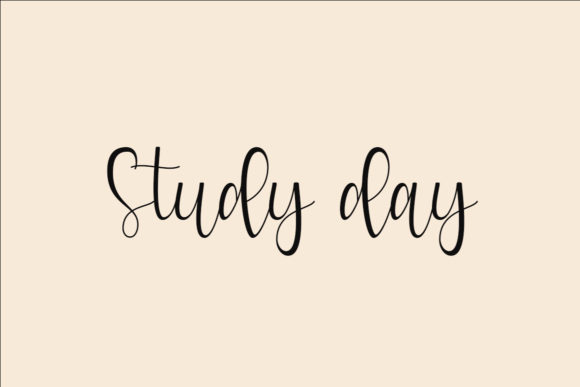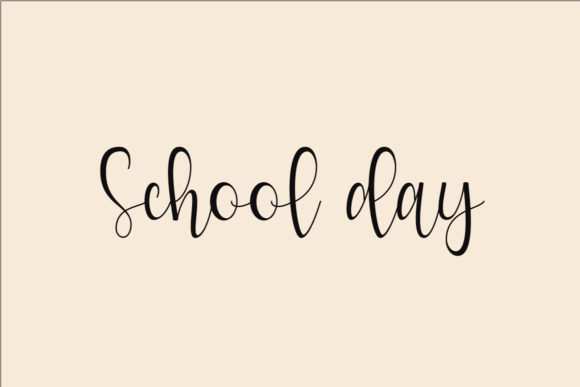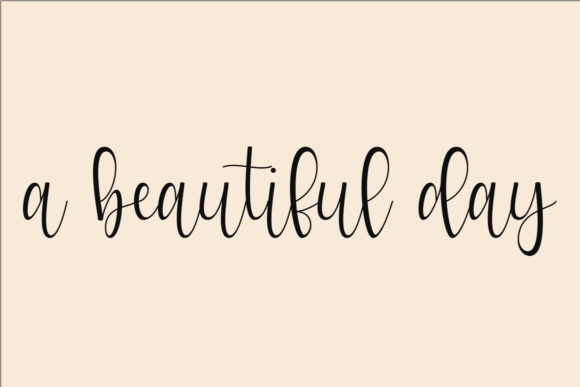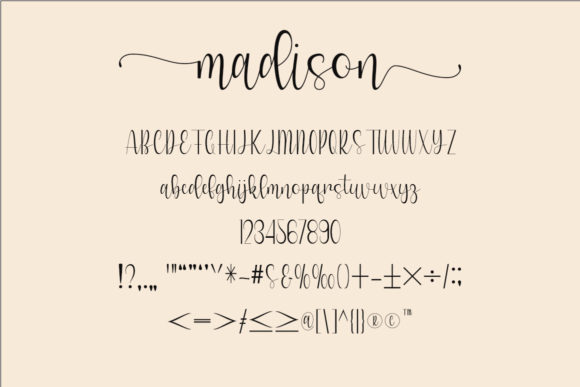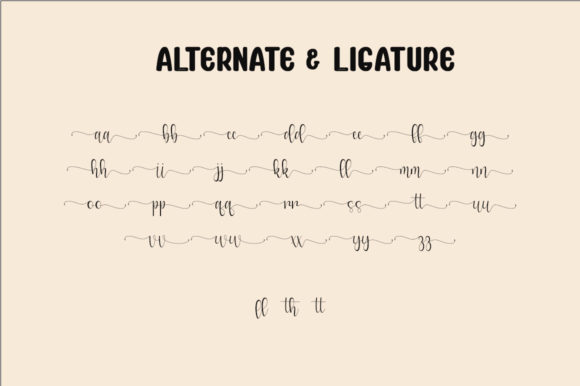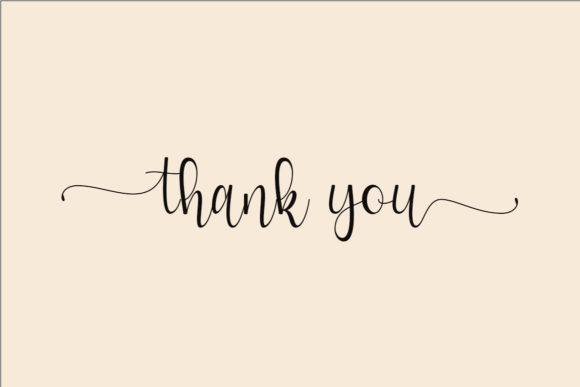
Madison Font
“Madison” is a captivating handwritten font that adds a touch of enchantment to your projects. This versatile typeface is well-suited for a wide spectrum of applications, ranging from greeting cards to headlines. With its PUA encoding, accessing all the intricate glyphs and swashes is a breeze, providing you with a seamless and creative experience.
The charm of “Madison” lies in its handwritten style, bringing a personal and authentic feel to your designs. Whether you’re crafting warm and inviting greeting cards or making a bold statement with attention-grabbing headlines, this font adapts effortlessly to various contexts.
The PUA encoding feature ensures easy access to a plethora of unique glyphs and swashes, allowing you to customize and enhance your designs with flair. This versatility makes “Madison” an excellent choice for creative projects that demand a distinct and stylish touch.
Imagine using “Madison” to infuse a sense of personality into your branding materials, editorial layouts, or social media graphics. Its enchanting quality elevates the visual appeal of your content, leaving a lasting impression on your audience.
In summary, “Madison” is more than just a font; it’s a versatile tool that empowers your creativity. Whether you’re designing for print or digital media, its handwritten charm adds a touch of magic to your work. With easy access to a range of glyphs and swashes, “Madison” invites you to explore and personalize your designs, making it a delightful and impactful addition to your typographic arsenal.